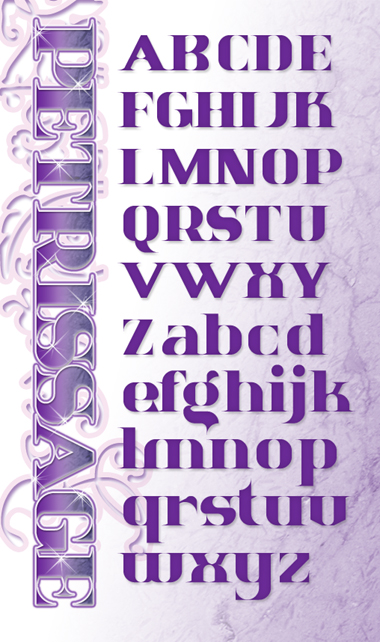
Petrissage
Petrissage. The 6 x 6 grid experiment.
Very nice font, keep up the good work, my fav from you is Bevalicious or whatever.
ooooouch. That 'g' is off the scale.......
or should I say all 3 'g's are off the scale.
That g makes this worth 10 by itself.
I agree, great g!
Absolutely fantastic. I'm still trying to understand how you built those shapes...
Genuflect, bow, scrape, oh great one, fawning obesience...
I really like your experiments with a small grid size. In this case it's really amazing to detect the
usual
FontStruct bricks in such complex shapes!
@Gustavo: just think of brick size filters :)
very, very cool!
Bom trabalho.
Geewillikins; I'll be cornswaggled; dang m' boots (and other such expressions of wonder)
classic and well crafted. a true beauty. by confining yourself to this grid, you've actually expanded your already prodigious technique.